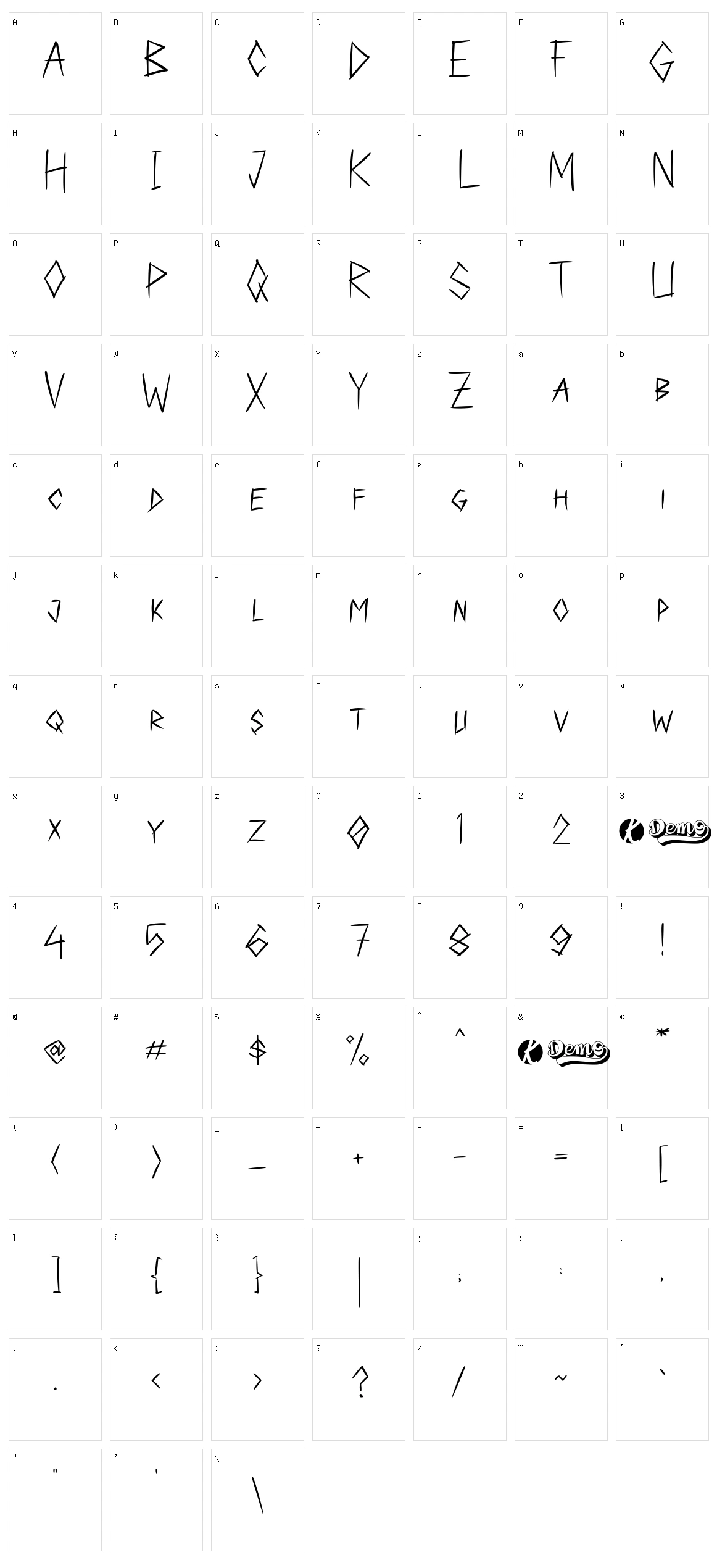
The free font ClawMan is carefully designed by Katario Studio, showcasing a thoughtful balance of creativity and usability and falls under the Halloween font style. When you download the ZIP file, it contains only 42.2 KB of font files, making it lightweight and quick to download. Please review the license details below to understand permitted usage and distribution rights. If license information is not available, we recommend using this font for personal projects only or contacting the author directly for commercial usage permissions.